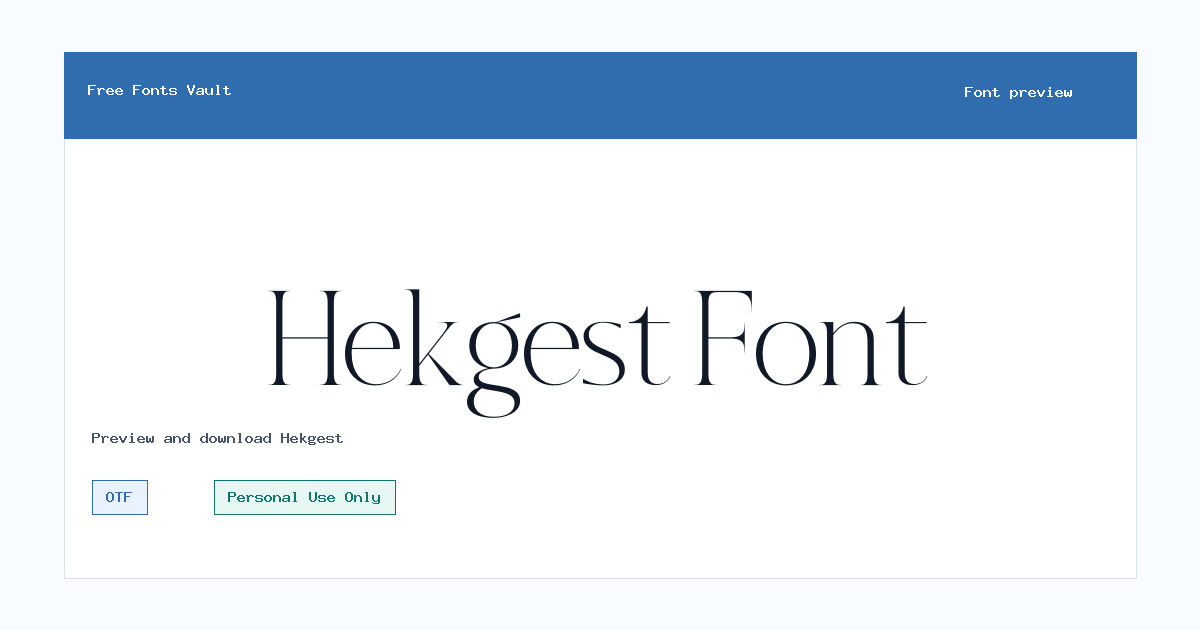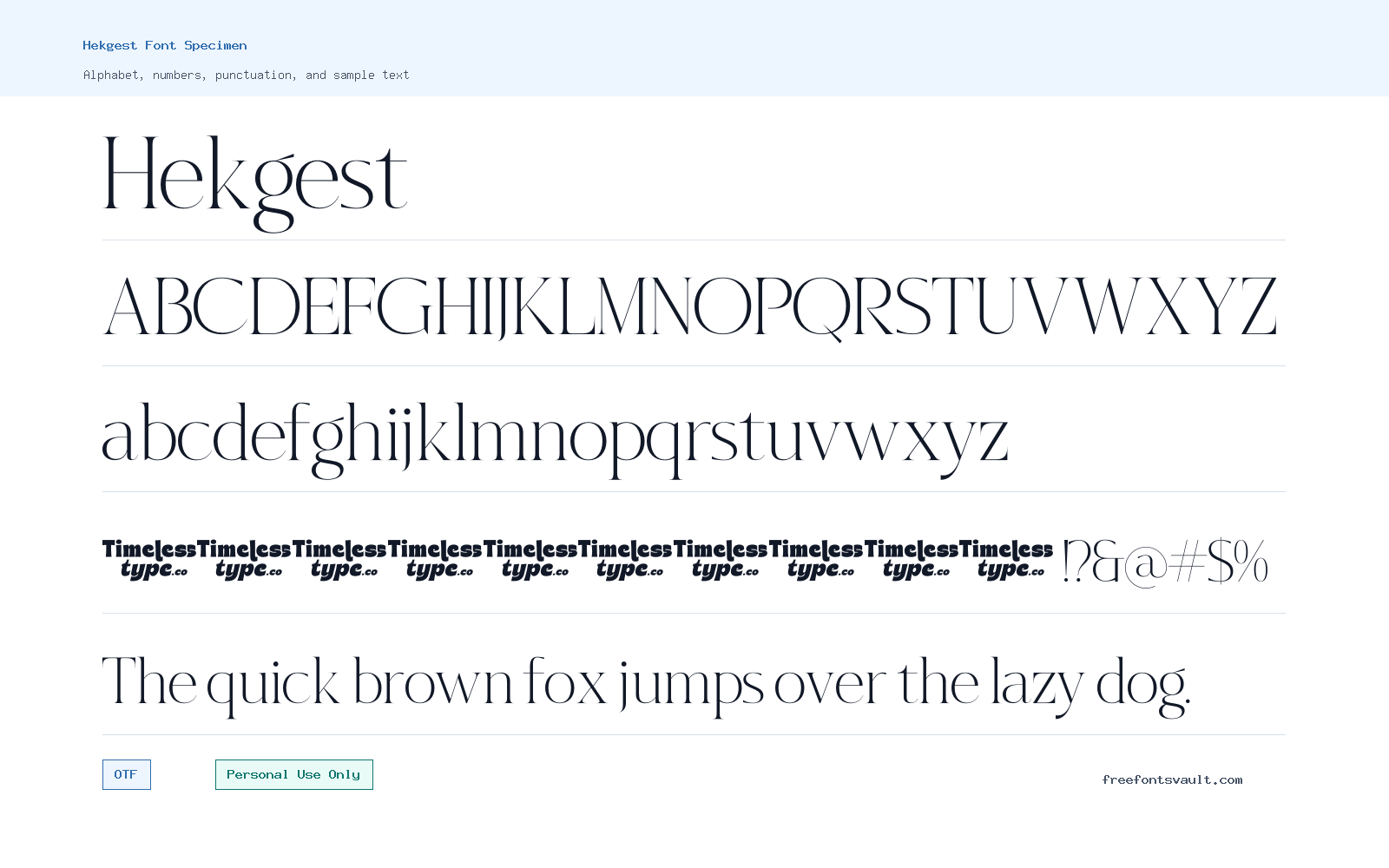
Hekgest
- Designer Heru Utama Putra
- Foundry TimelessType
Hekgest font.
Hekgest is a serif display font with a clean regular style, suited to projects where you want a refined title or brand-style wordmark without using a heavy decorative face.
About Hekgest Font
Hekgest works best when it is treated as a headline font rather than a long-reading text face. Its serif structure gives it a formal, polished feel, while the regular weight keeps the look controlled and easy to preview in short words, names, and title lines. If you are testing it for a logo, poster, social graphic, or web mockup, start with a few real phrases instead of only the alphabet. A font can look very different once letters repeat, words sit close together, or the design is reduced to a small size.
- Suited to titles, display text, logo drafts, and visual mockups
- Works best at larger sizes where the serif details can be seen
- Useful for testing elegant branding and editorial-style compositions
- Logo concepts and personal branding mockups
- Fashion, beauty, boutique, or editorial-style layouts
- Invitation headings and decorative title cards
- Website hero text mockups and landing page concepts
- Packaging drafts where a serif display tone is needed
Hekgest is credited to Heru Utama Putra, with TimelessType listed as the foundry. The designer URL is TimelessType.co.
Use Hekgest where the words are short and visible: logos, titles, posters, covers, and social graphics. Avoid relying on it for dense paragraphs unless you have tested readability at the final size. For pairing, keep the second font simple. A clean sans serif can handle captions, menus, body copy, and supporting details while Hekgest carries the main headline. If the design feels too formal, increase spacing slightly or pair it with a more neutral text font. If it feels too delicate, use stronger contrast, larger sizing, or fewer words.
What type of font is Hekgest?
Hekgest is a serif font in a regular style. It is most practical as a display font for headings, logo drafts, posters, and visual identity mockups.
Who designed Hekgest?
Hekgest is credited to Heru Utama Putra, with TimelessType listed as the foundry.
Is Hekgest good for body text?
It is better to use Hekgest for short display text. For paragraphs, pair it with a simpler text font and test readability before finalizing the design.
What fonts pair well with Hekgest?
Pair it with a neutral sans serif or a quiet text serif. Let Hekgest handle the headline, then use the supporting font for paragraphs, navigation, captions, and small details.